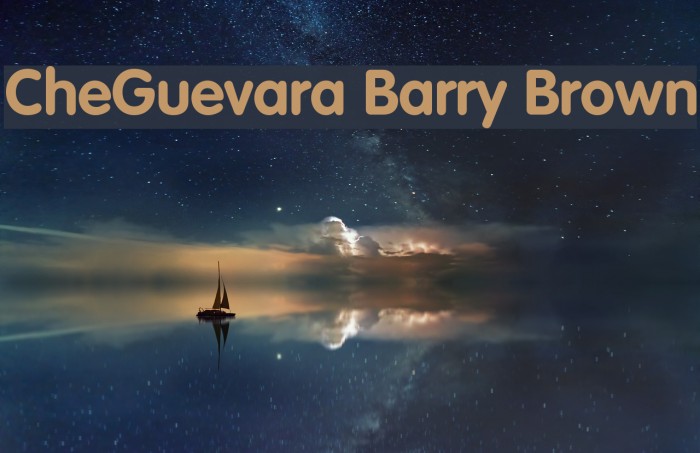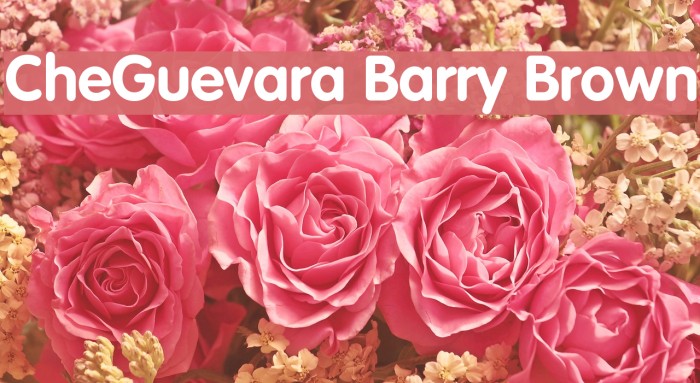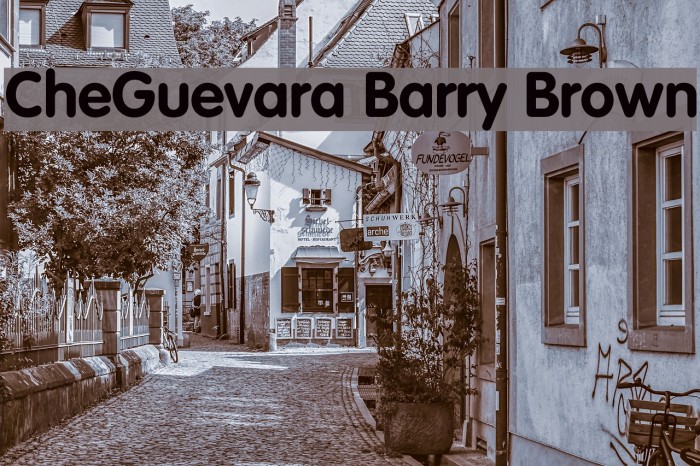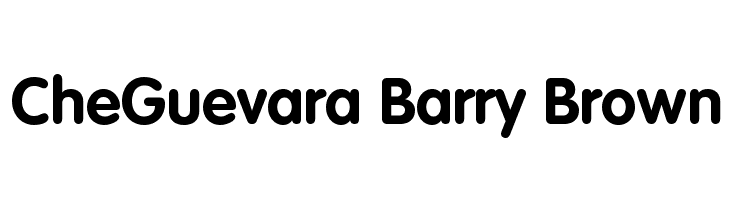
CheGuevara Barry Brown Font
This font features a bold and rounded sans-serif style, characterized by its smooth curves and uniform stroke width. The letters are well-proportioned, with a modern and friendly appearance. The uppercase and lowercase letters maintain a consistent design, ensuring readability and visual harmony. The numerals are clear and distinct, matching the overall aesthetic of the alphabet. Special characters are included, providing versatility for various design needs. The font's rounded edges give it a soft and approachable feel, making it suitable for a wide range of applications.
A bold, rounded sans-serif font with a modern and friendly appearance.
- Proposed Projects: Ideal for branding, advertising, packaging, and children's books due to its approachable style.
- Use Case: Headlines, Logos, Branding